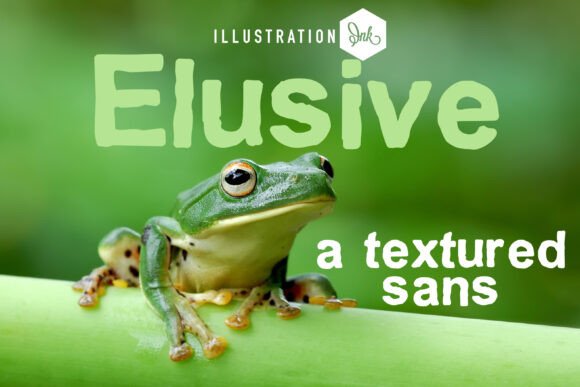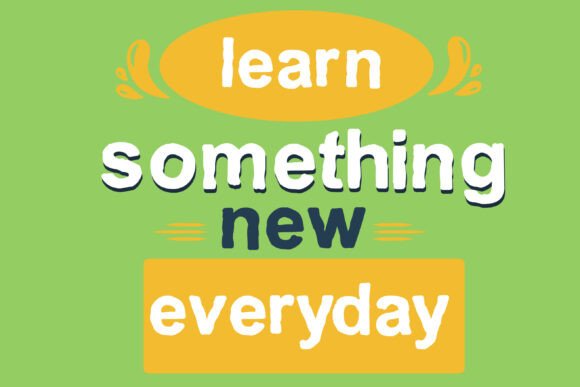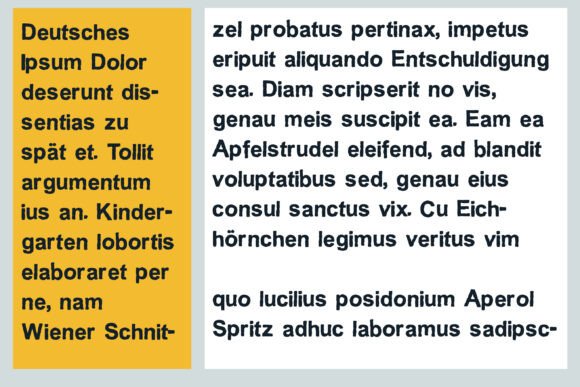
Elusive Font
About the Elusive Font
Welcome to the world of Elusive Font, a typeface that will inspire your next great project. This hand-crafted sans serif is bold and sports a lot of texture.
Elusive Font’s bold texture makes it ideal for headlines, short impactful statements, and branding elements where a strong visual presence is desired. It works exceptionally well in posters, packaging for premium products, and short-form marketing materials. However, its handcrafted nature and textural details make it less suitable for body text or UI elements requiring high readability at small sizes. Long paragraphs set in Elusive Font would likely be difficult to read.
Its personality is best described as bold and confident, yet approachable. Think established brands aiming for a sophisticated yet friendly image.
Pairing Elusive Font with a clean sans-serif like Lato for body copy provides excellent contrast and readability. For a more refined aesthetic, consider a classic serif like Garamond or a slightly more geometric sans-serif such as Montserrat. Avoid pairing it with other highly textured or overly decorative fonts to maintain visual clarity.
Elusive Font Usage Examples
Elusive Font Example